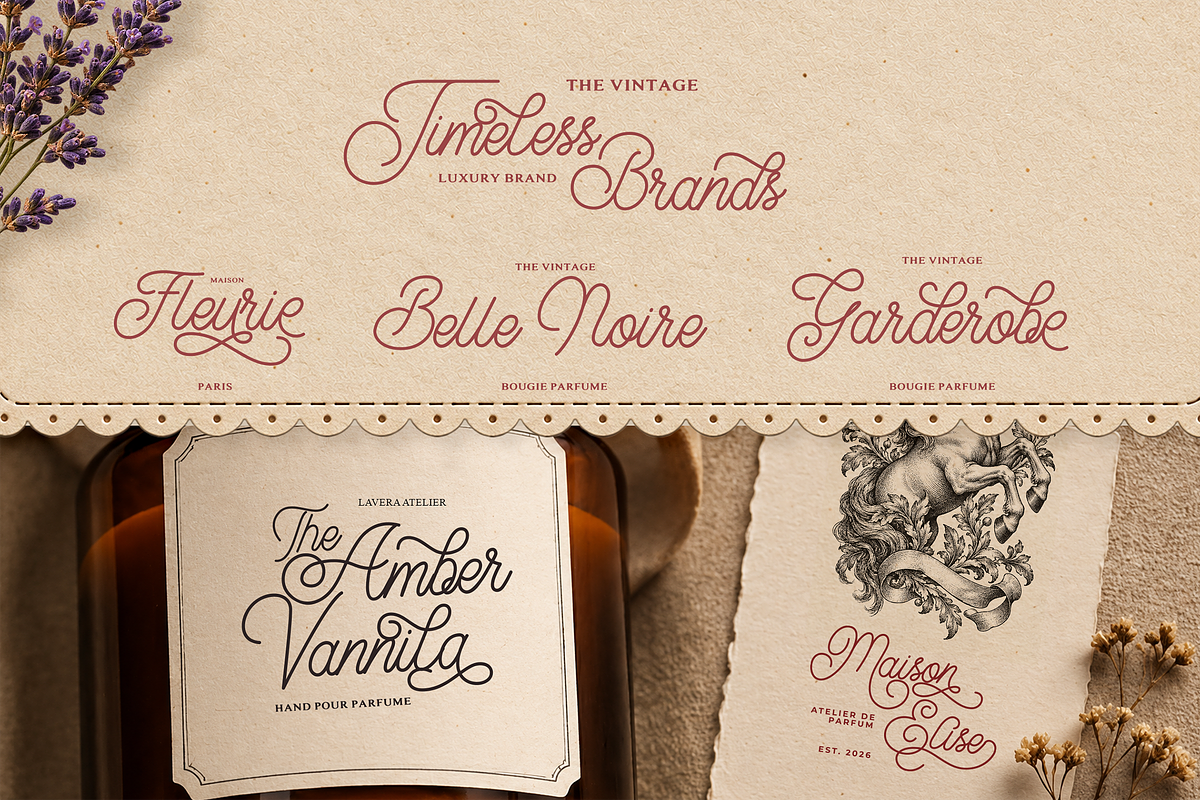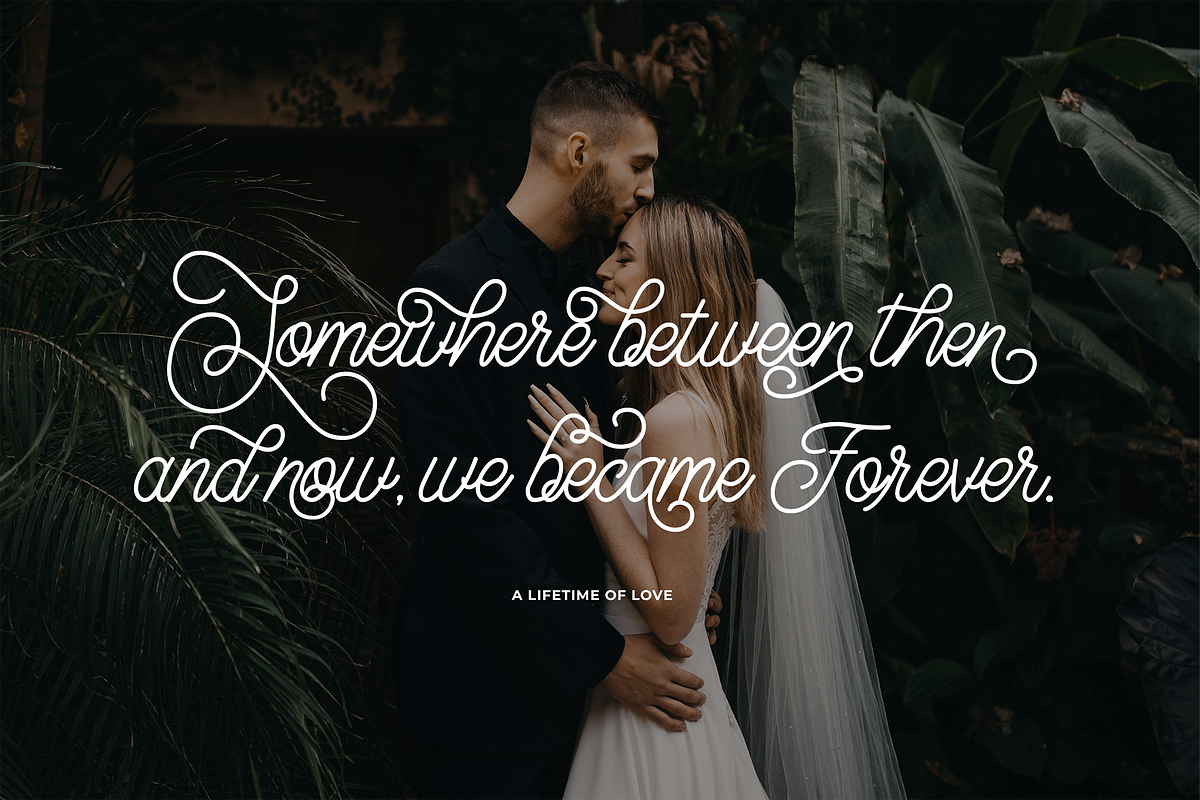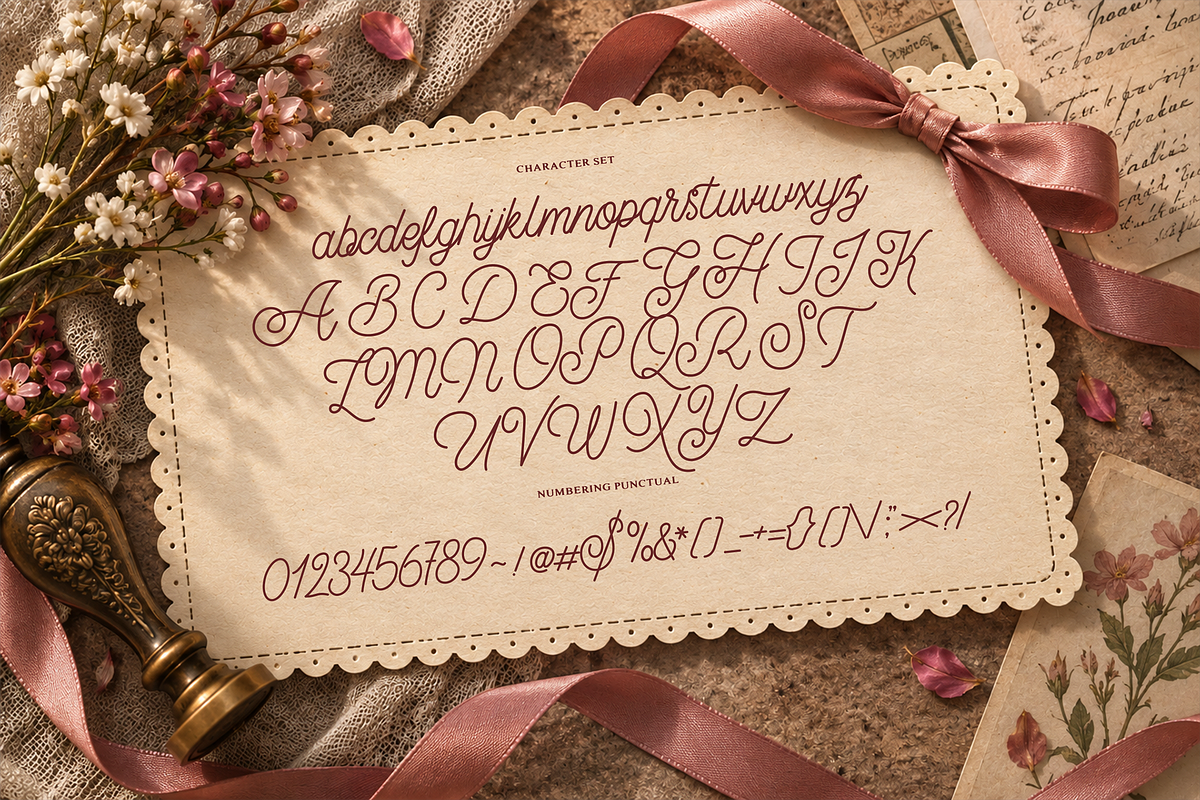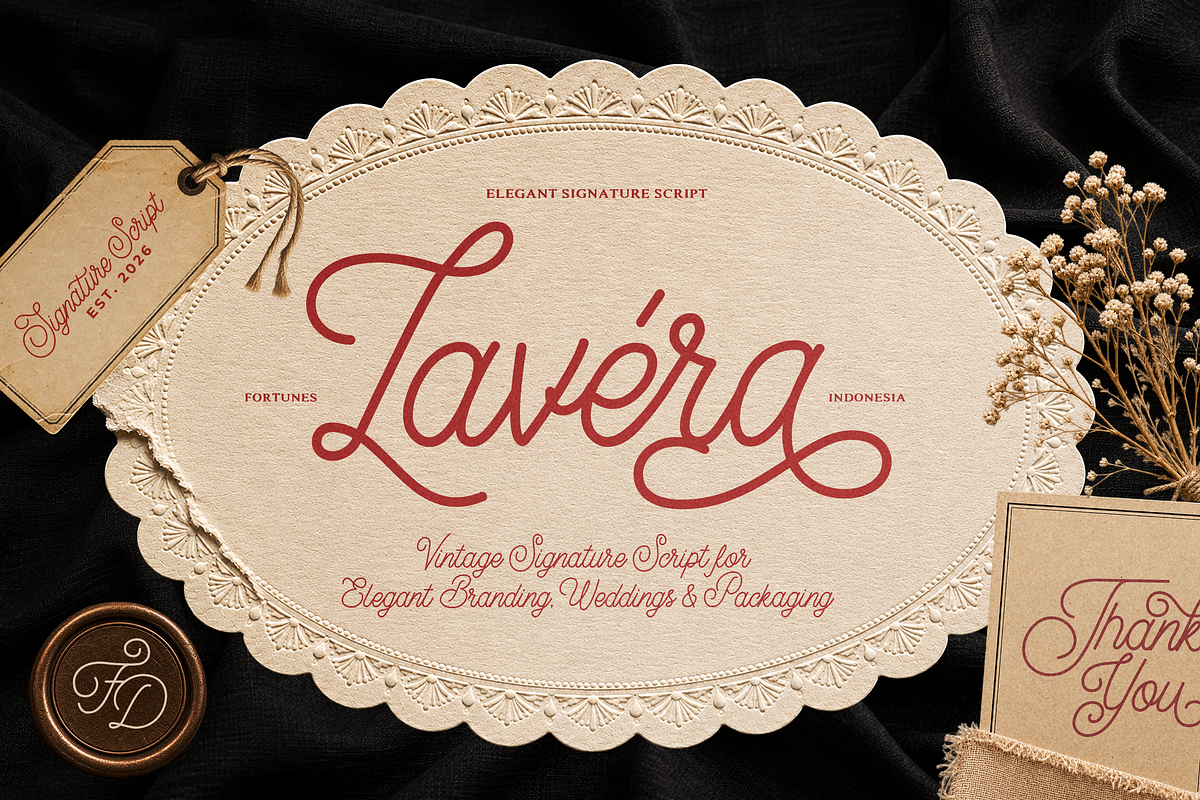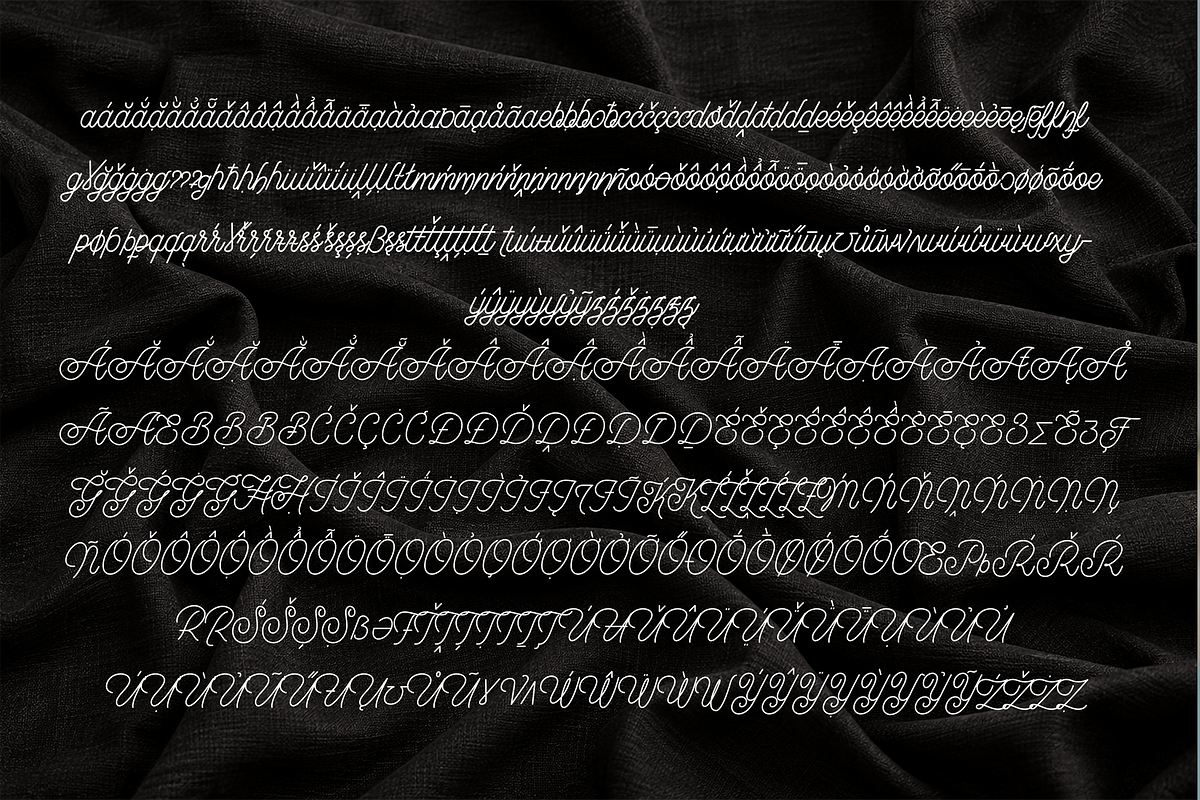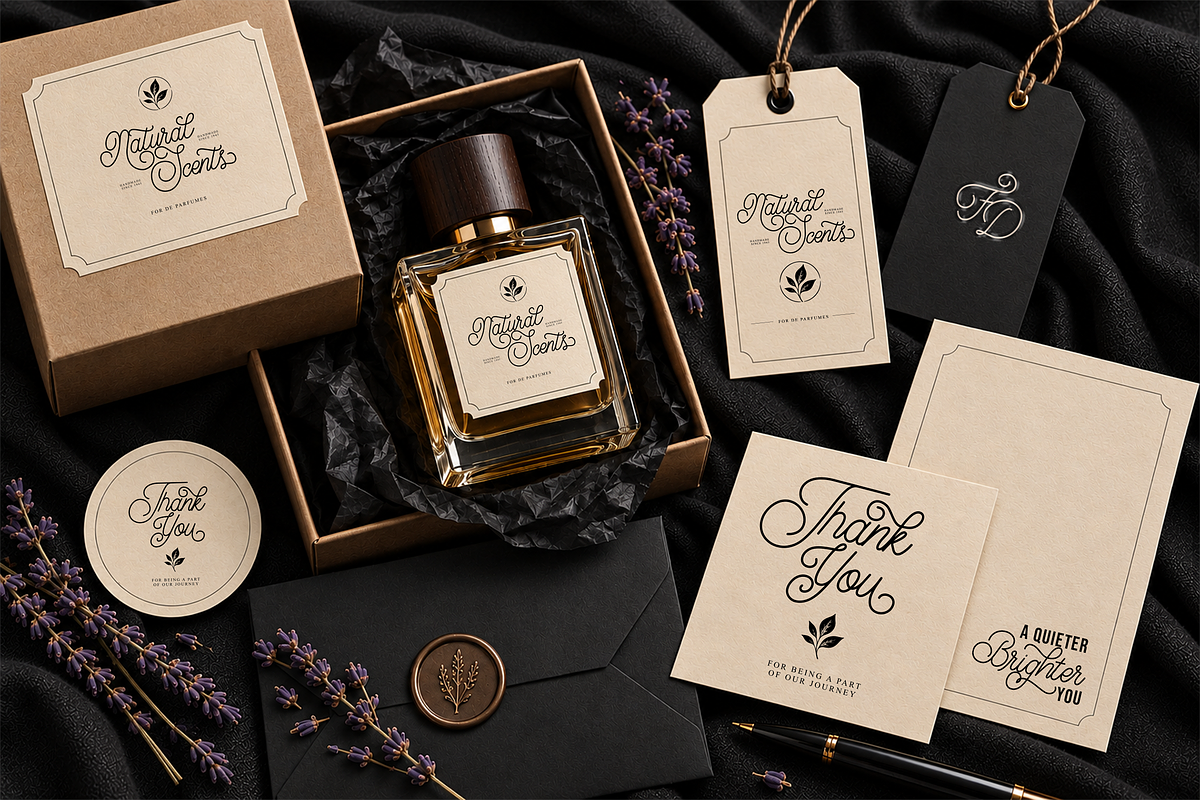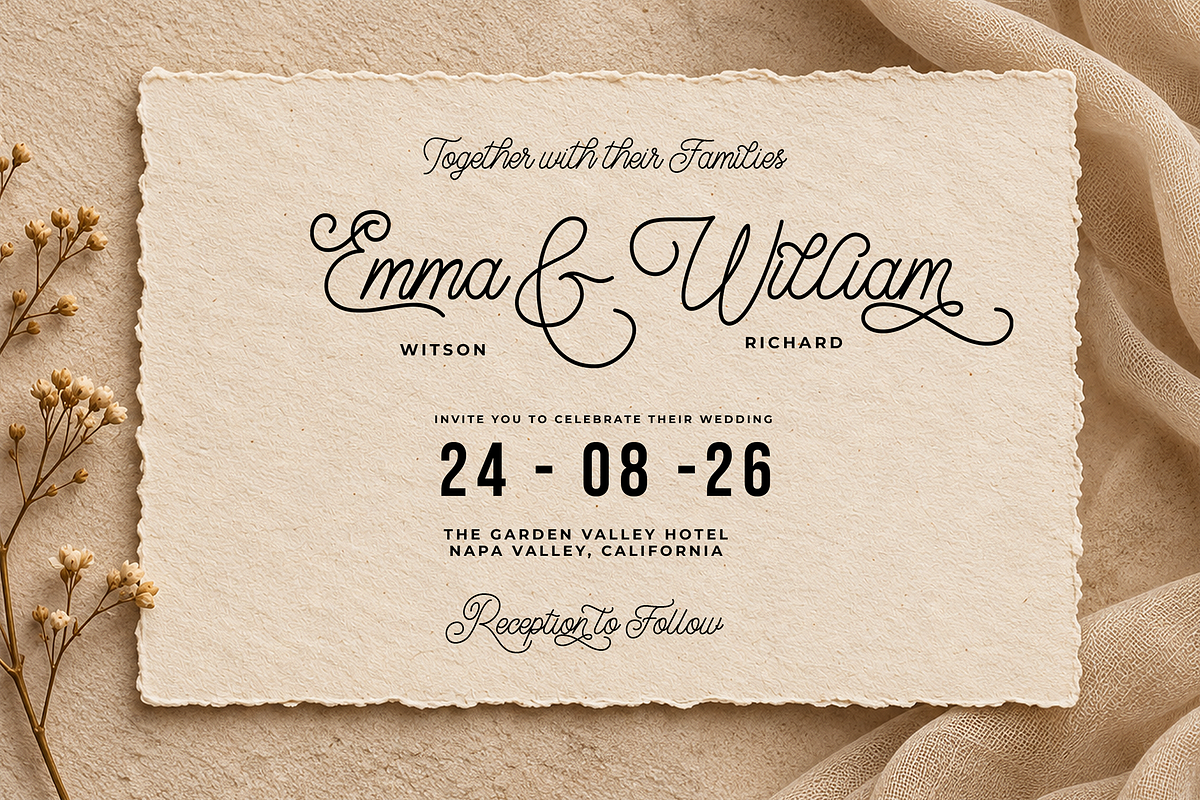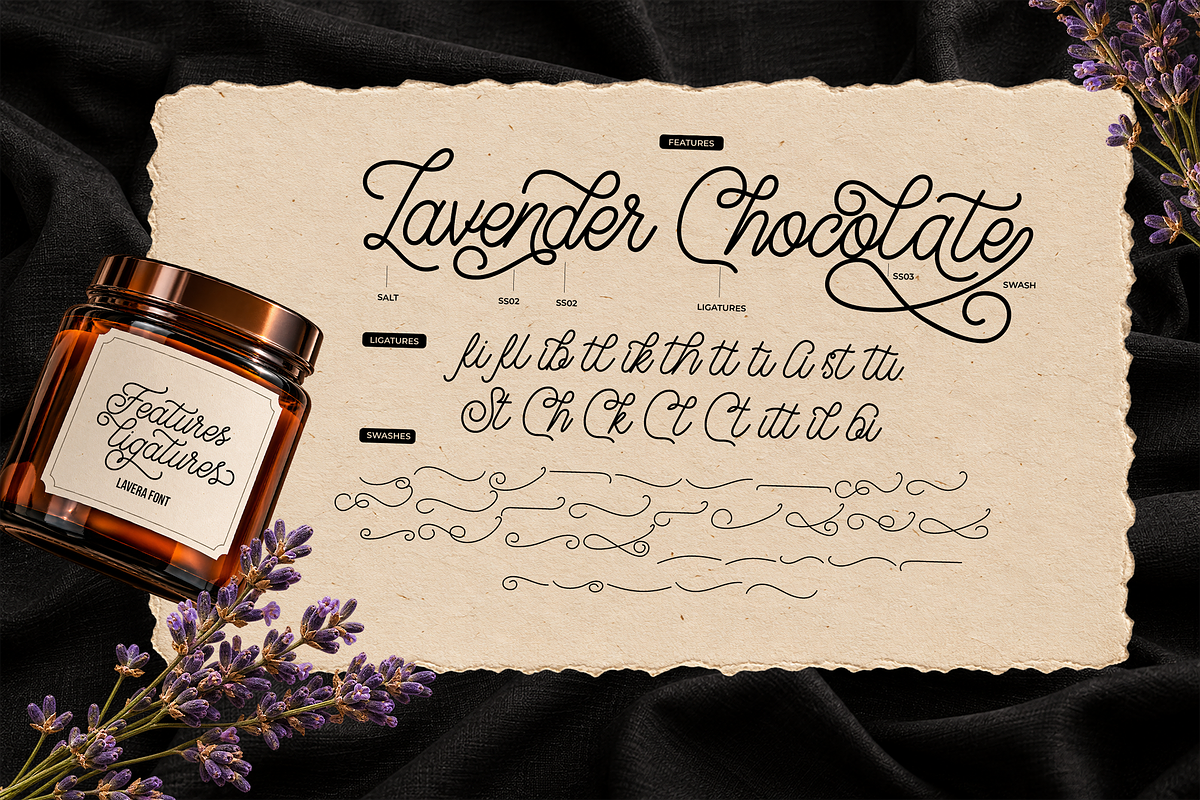
Lavéra – Elegant Signature Script
éra is an elegant vintage-inspired signature script designed to bring a sophisticated, romantic, and handcrafted feel to your creative projects. With graceful flowing strokes, stylish swashes, and beautiful letter connections, Lavéra is perfect for creating memorable and luxurious visual identities.
This versatile script font is ideal for branding, logos, wedding invitations, stationery, packaging, perfume labels, beauty products, fashion brands, greeting cards, social media graphics, and more.
Its timeless character works beautifully for both feminine and luxury-inspired designs, giving your projects an authentic handwritten signature aesthetic.
Lavéra is crafted for designers who want an elegant, expressive, and timeless handwritten look.